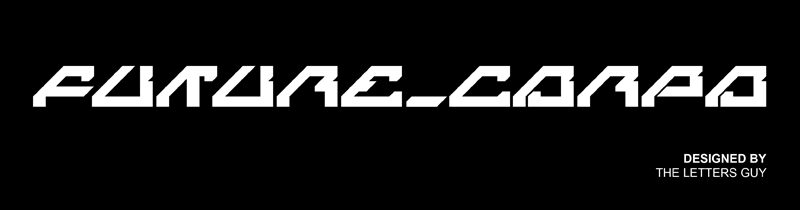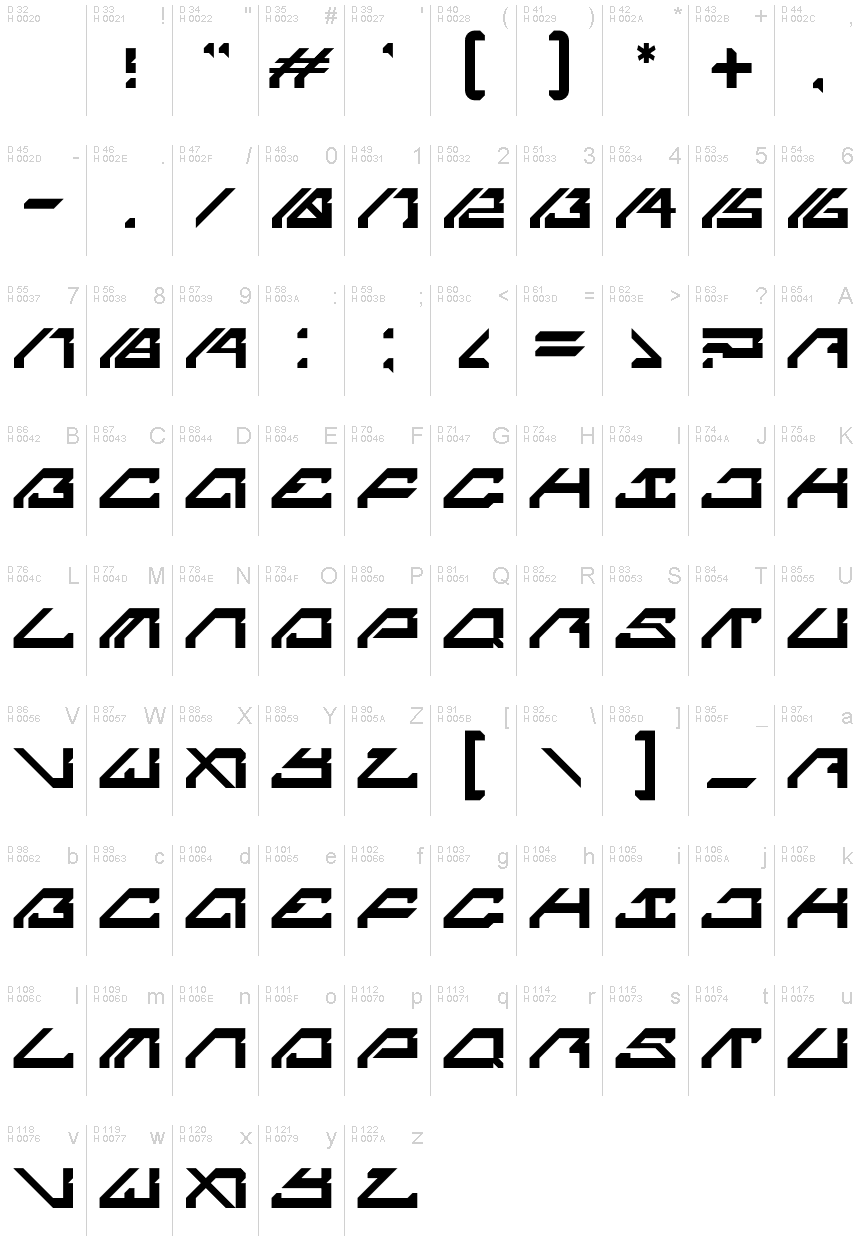
Future Corpo
Future Corpo is a display font designed by The Letters Guy, perfect for projects that require a futuristic touch. With its extra-expanded width, this semi-bold typeface is ideal for headlines, titles, and logos that demand attention. Whether it's for sci-fi movies, tech startups or fashion brands, Future Corpo will make your design stand out from the crowd. Its sleek and modernist style exudes professionalism and confidence while also conveying a sense of innovation and progress. If you want to give your next project an edge over the competition, Future Corpo is the font for you.